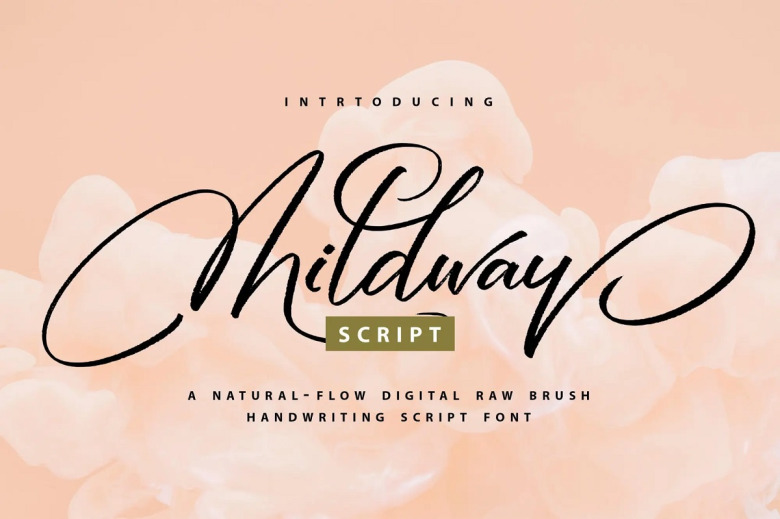
Mildway Font
Mildway is a stunning brush calligraphy script font. Add it on your projects and make exceptional designs! It is also PUA encoded which means you can access all of the glyphs and swashes with ease!
Mildway Calligraphy Font